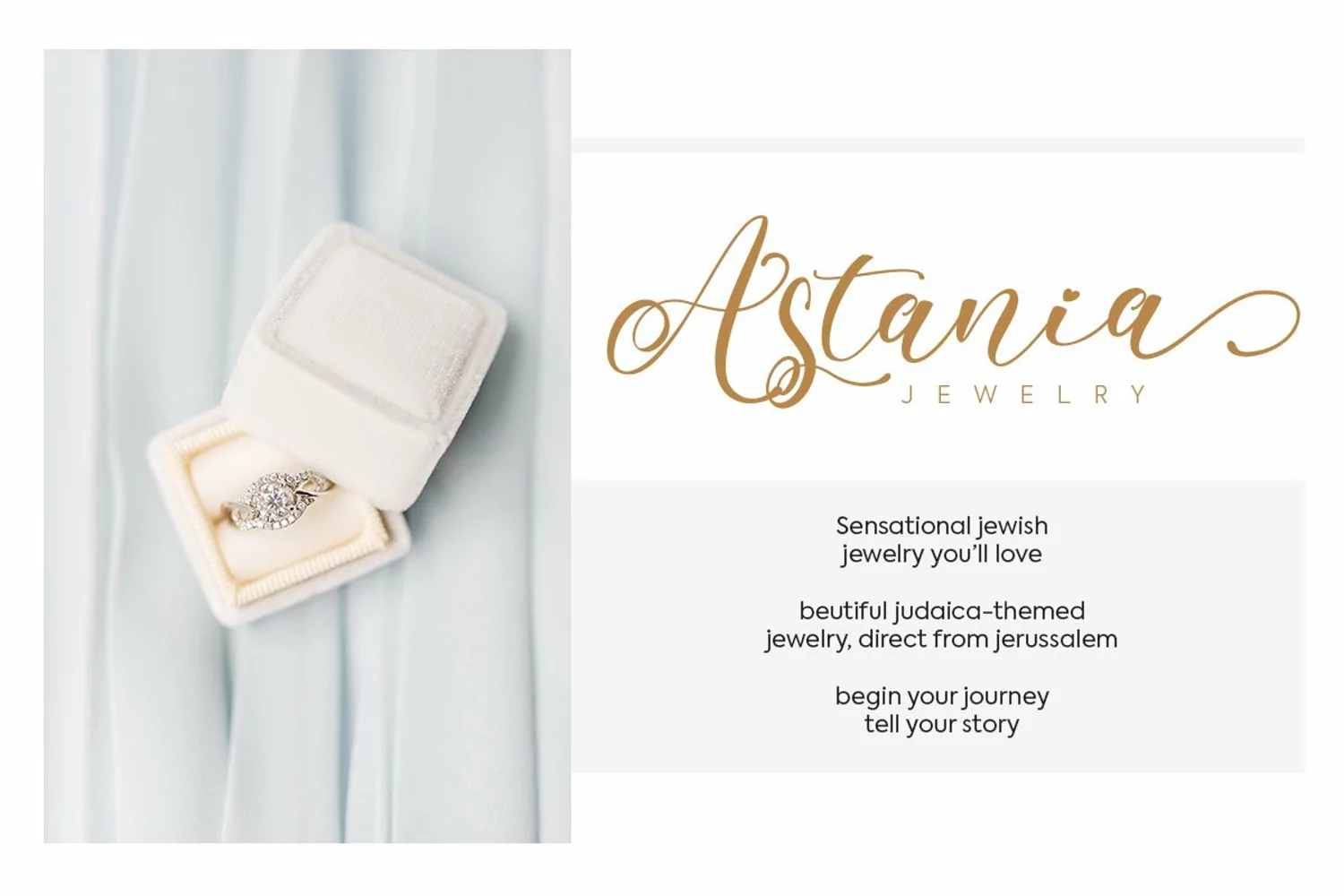
Say hello to Marthiya Script.
Marthiya is a beautiful and modern script.
It brings a beautiful and modern typeface that best used for weddings, branding, logotype, and quotes.:
- 6 Ligatures
- 115 Beautiful Alternates + Swashes
- Numerals and Punctuation
- Beginning Swash and Ending Swashes (a-z)